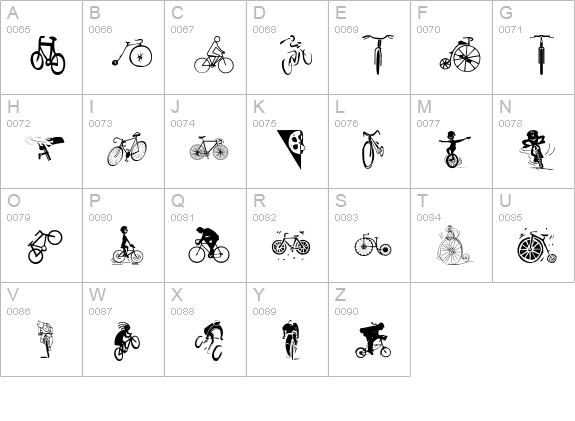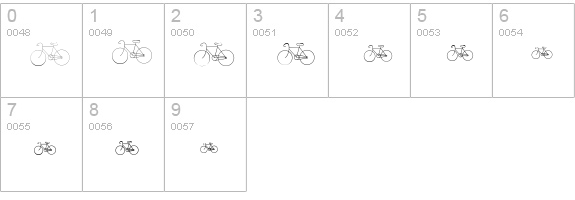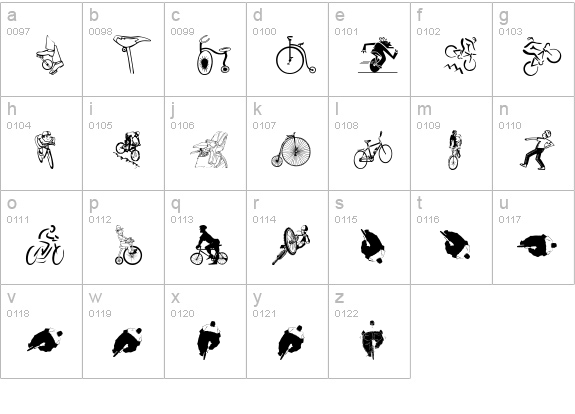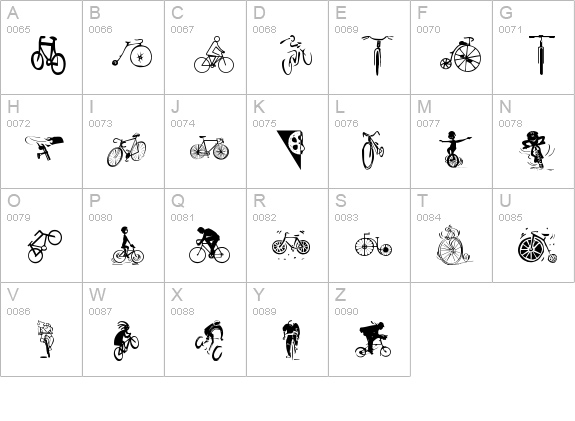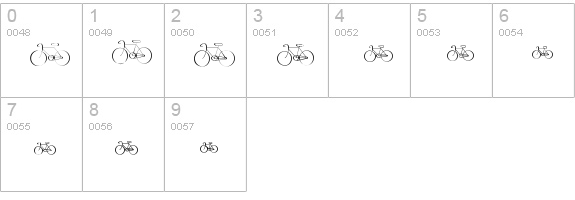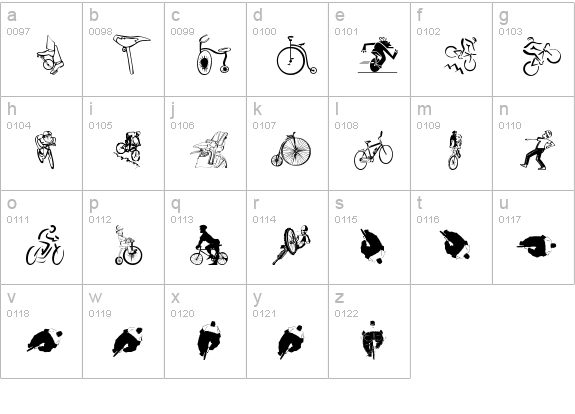
Cycling Font Details
Introducing Cycling font, a modern and stylish typeface perfect for all your design needs. With its sleek lines and contemporary look, Cycling font is sure to make your projects stand out. This versatile font is ideal for branding, logos, posters, and more. What's even better is that Cycling font is completely free to download at FontsMarket.com. So go ahead and elevate your designs with this amazing typeface today!